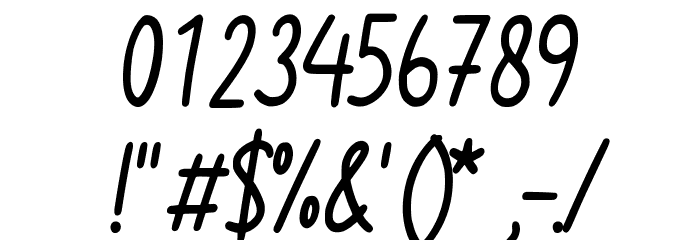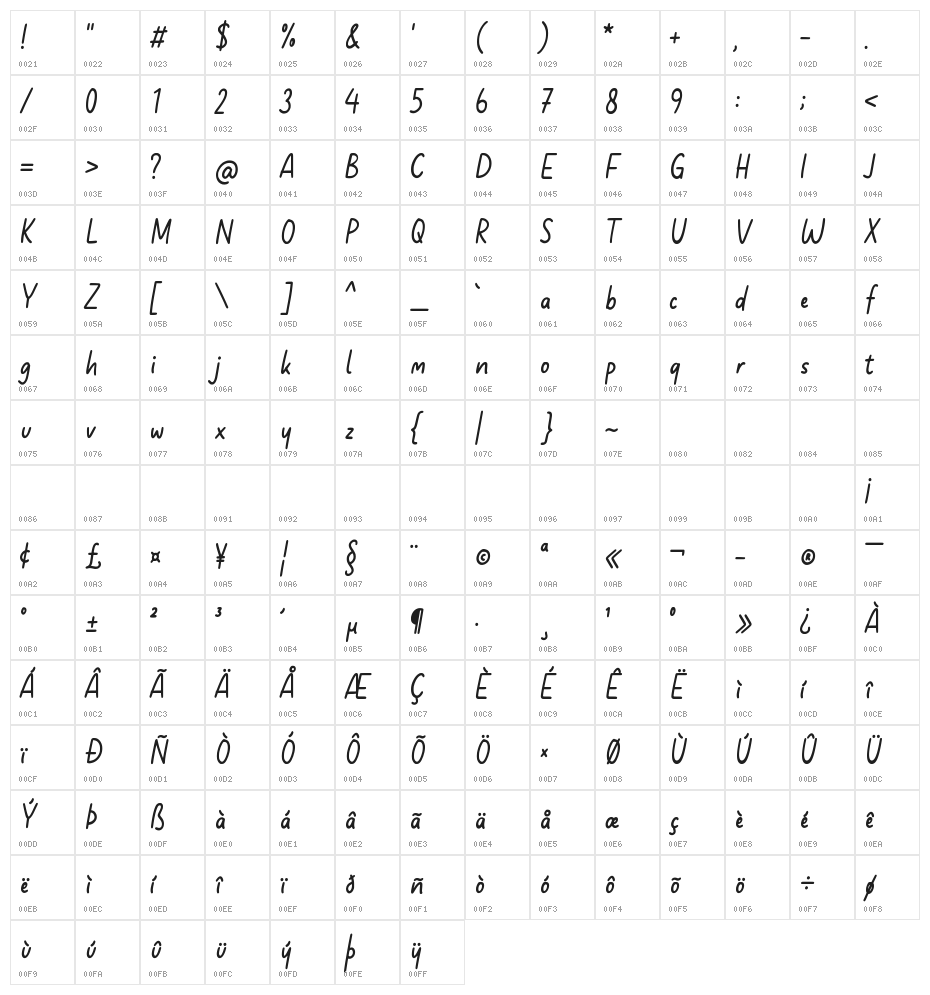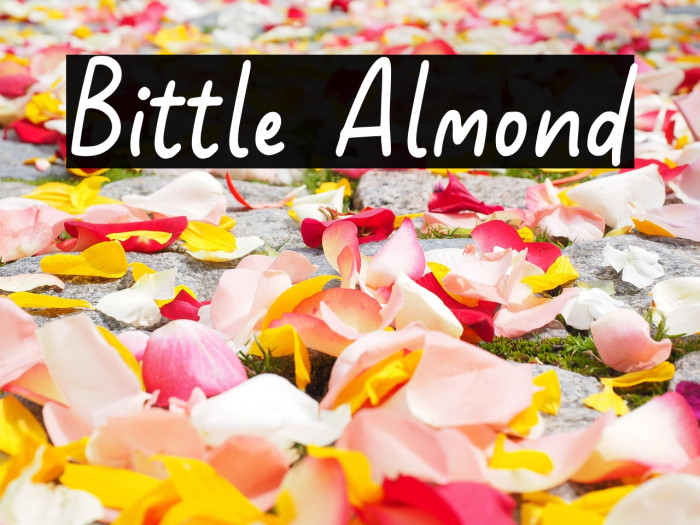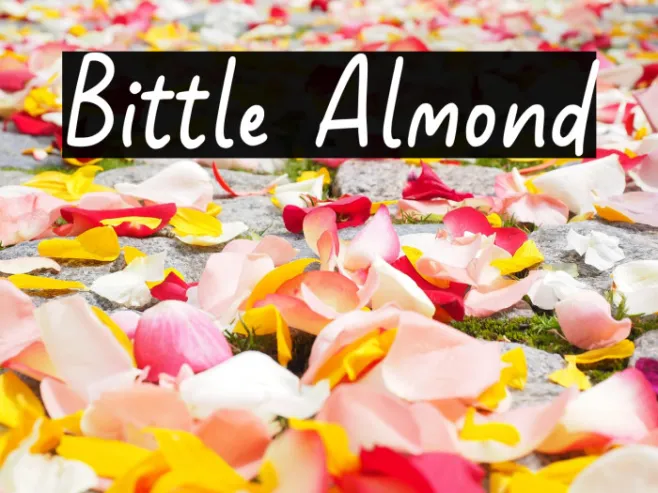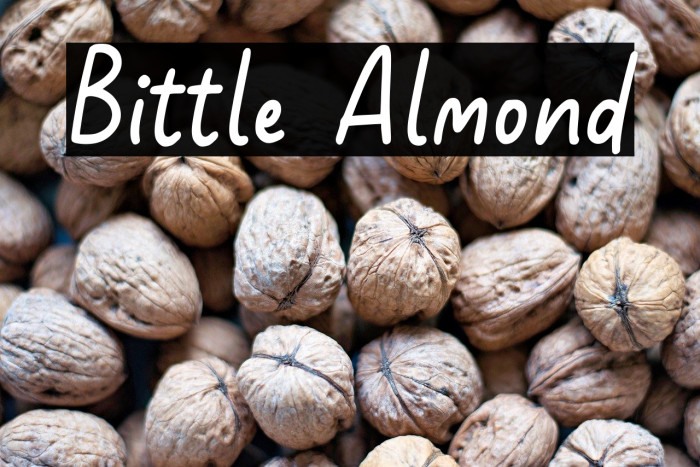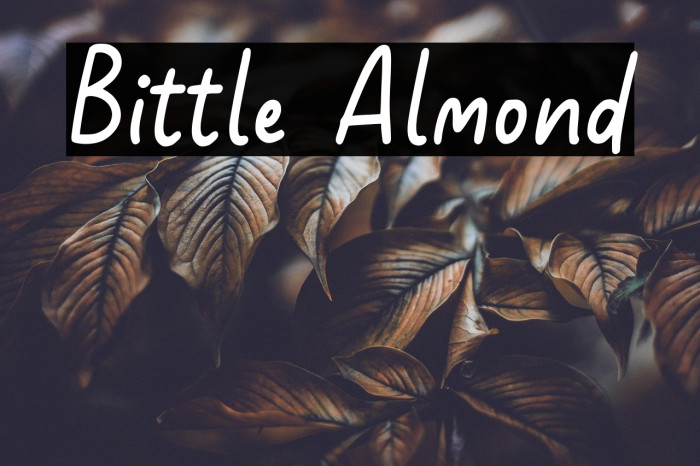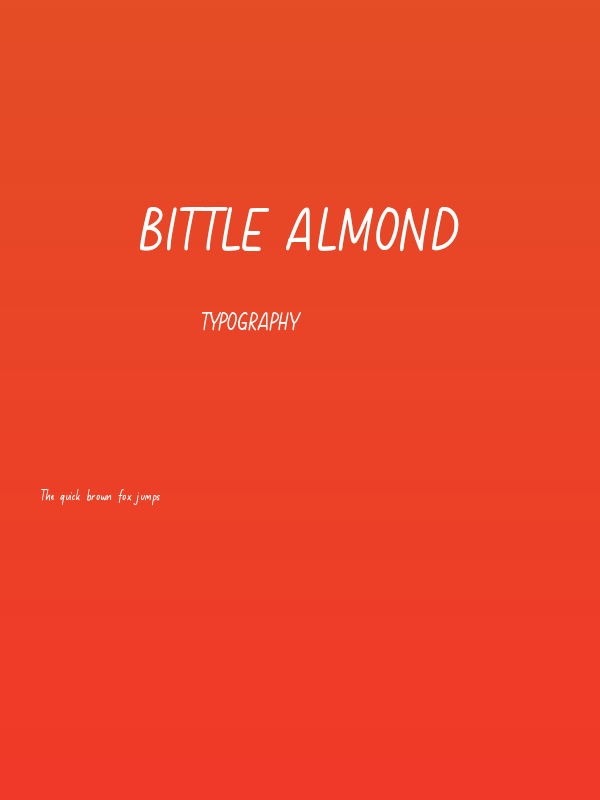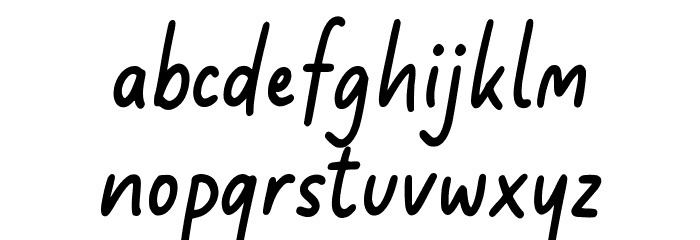
Bittle Almond Font
Bittle Almond Description
This font features a playful and casual handwritten style, characterized by its smooth, flowing curves and slightly irregular letterforms. The uppercase letters are tall and slightly narrow, while the lowercase letters maintain a consistent height, giving the font a cohesive look. The numbers and special characters follow the same informal style, making them blend seamlessly with the alphabet. The overall appearance is friendly and approachable, suitable for projects that require a personal touch. The strokes are consistent in width, providing a balanced and harmonious feel.
| Proposed Projects | Ideal for greeting cards, invitations, personal branding, and informal communications. |